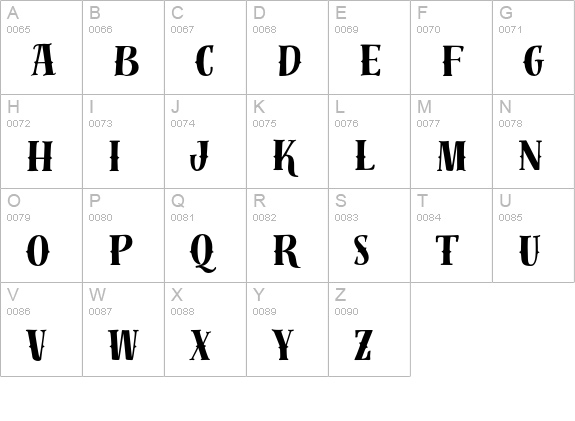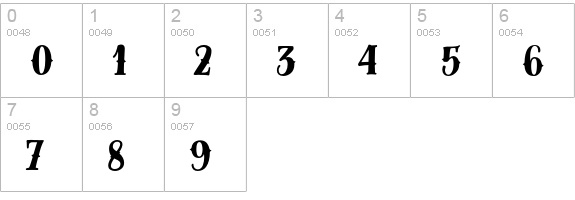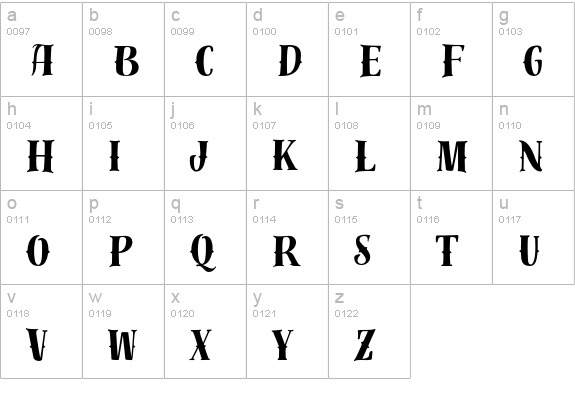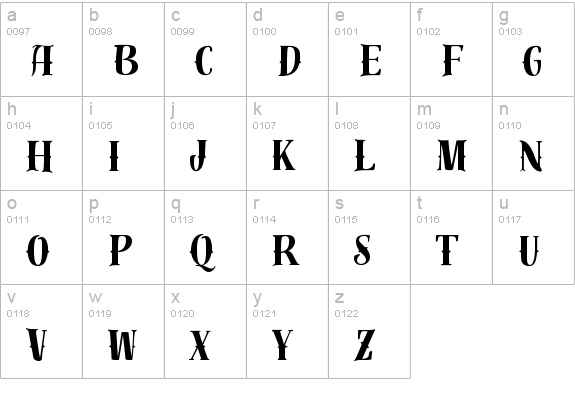
DistilleryStrong is a bold and powerful font that exudes strength and sophistication. Its strong, thick lines are perfect for making a statement and commanding attention. This versatile font is ideal for headlines, logos, posters, and any design where you want to make a bold impact. What's even better is that DistilleryStrong is available for free download at FontsMarket.com. You can easily add this stunning font to your collection and use it in all your design projects without any cost. Don't miss out on this amazing opportunity to elevate your designs with the impactful DistilleryStrong font. Download it now and start creating visually striking designs today!